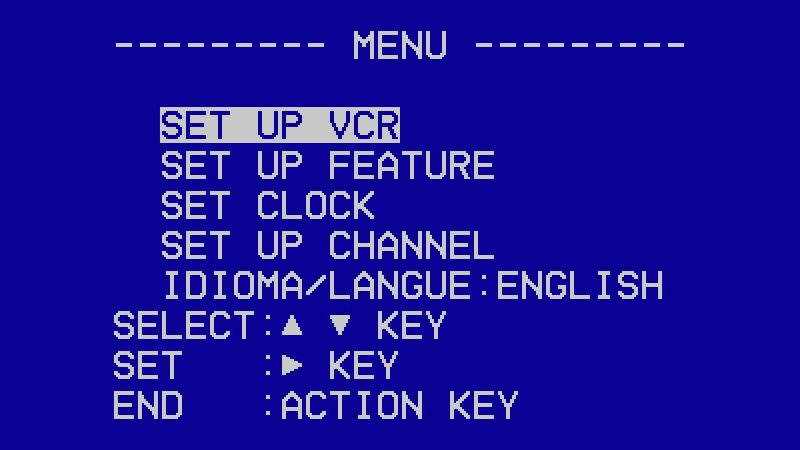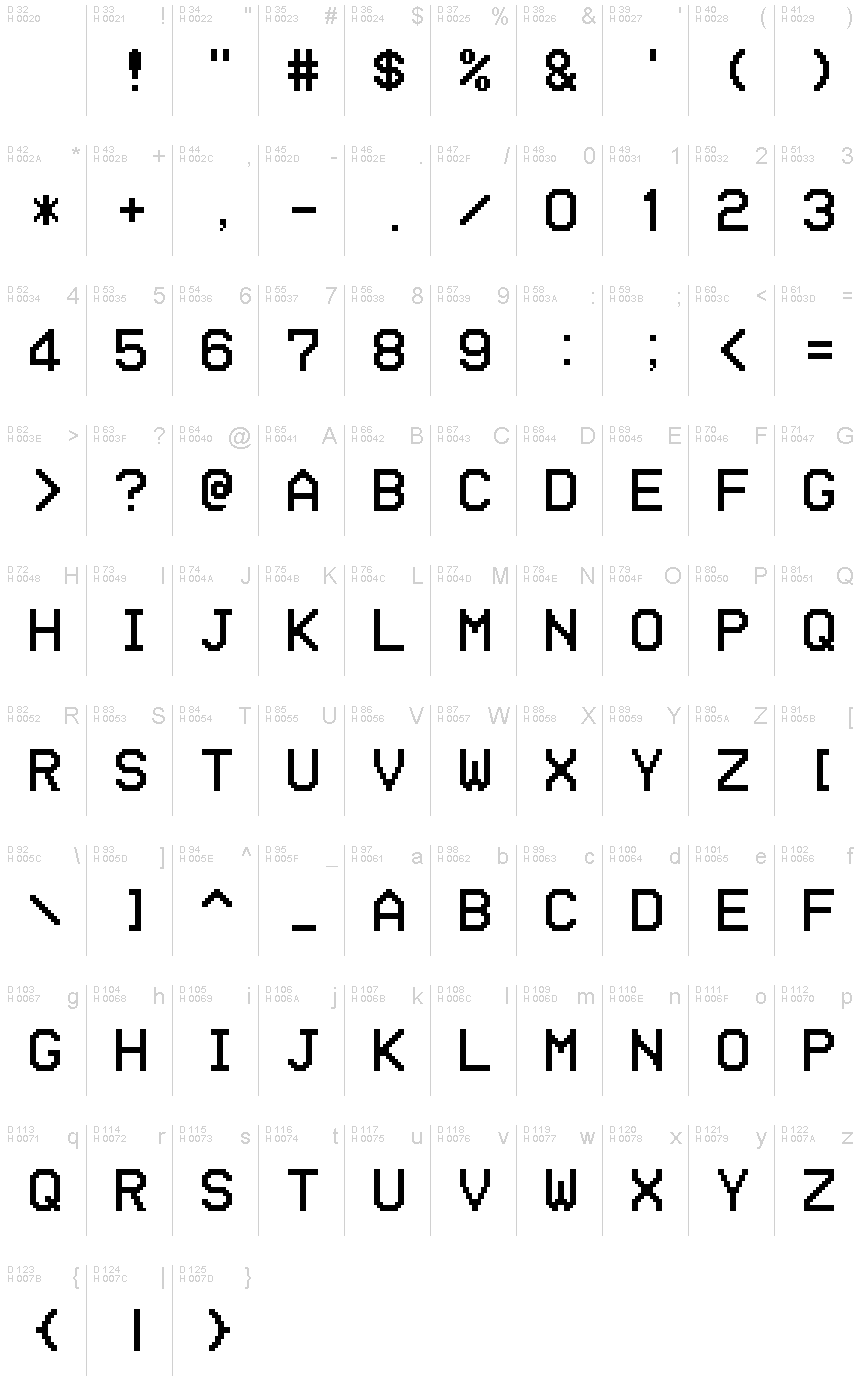
Home Video font, crafted by GGBotNet, is a captivating bitmap font that embraces a distinct pixelated style. Reminiscent of retro digital aesthetics, its design captures the nostalgia of vintage video games and early computer graphics. The font's structured form and clear delineation make it an ideal choice for projects seeking to evoke a sense of classic digital allure.
Whether you're designing a game interface or creating eye-catching online graphics, the Home Video font offers an authentic throwback vibe. Perfect for use in creative designs looking to stand out with bold pixelated appeal. This free font is available for download, ready to enhance your next creative endeavor with its unique charm and retro flair.